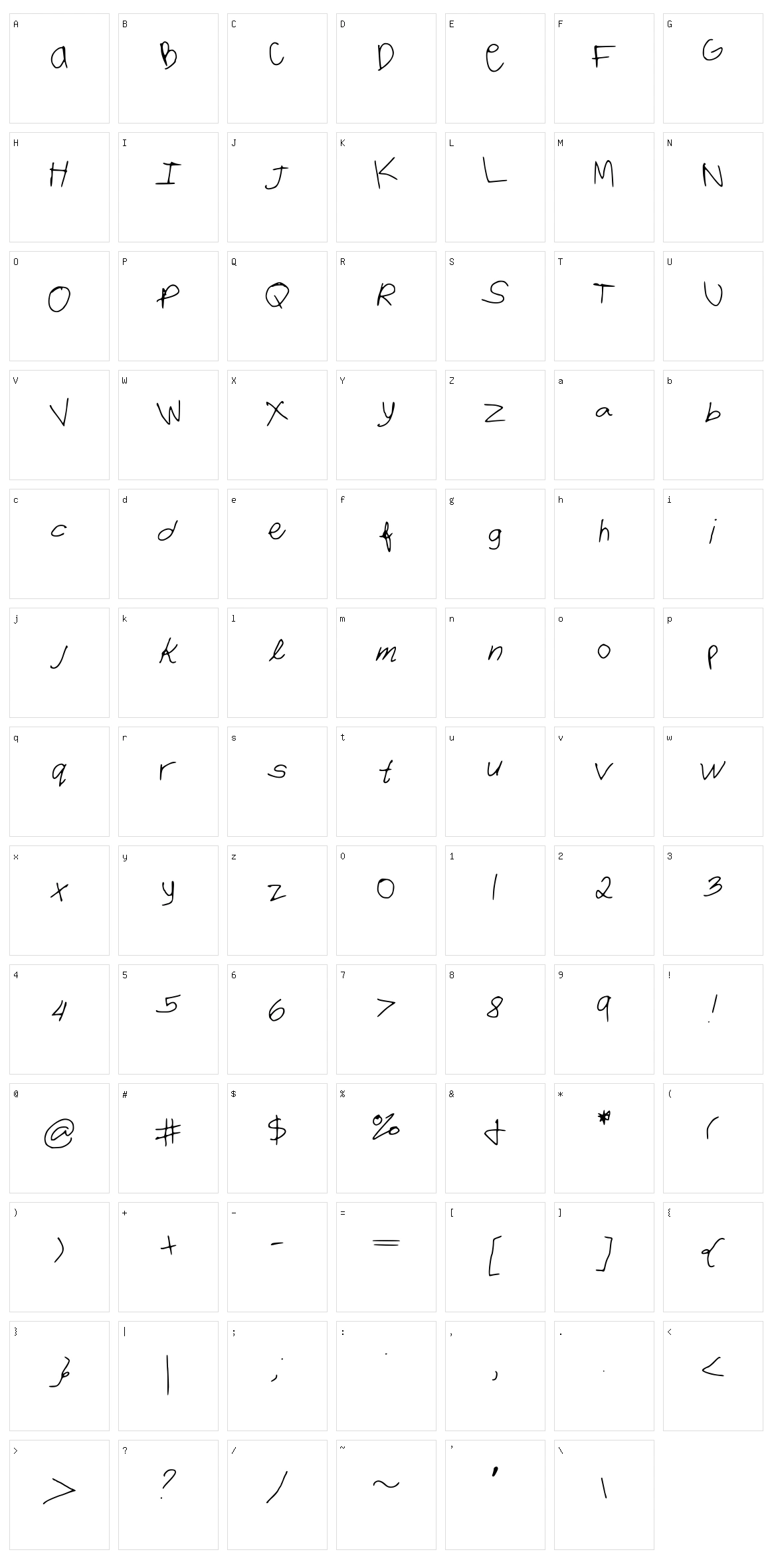
The free font Imsogay is carefully designed by reaperleave, showcasing a thoughtful balance of creativity and usability and falls under the Script font style. When you download the ZIP file, it contains only 14.85 KB of font files, making it lightweight and quick to download. Please review the license details below to understand permitted usage and distribution rights. If license information is not available, we recommend using this font for personal projects only or contacting the author directly for commercial usage permissions.